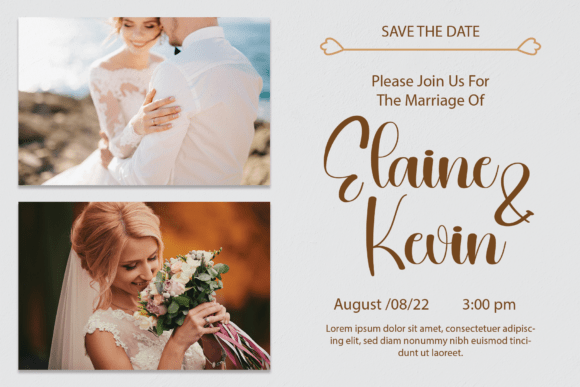
Brainly Font: A Stylish Script Handwritten Font for Elegant Designs
In the world of typography, fonts play a crucial role in conveying the tone and personality of a brand, product, or service. Among the numerous fonts available, Brainly Font stands out as a stylish script handwritten font that has captured the attention of designers and marketers alike. With its elegant curves and natural flow, Brainly Font is perfect for adding a personal and sophisticated touch to various designs, including branding, invitations, logos, and more.
What is Brainly Font?
Brainly Font is a modern script handwritten font that boasts a unique blend of elegance and playfulness. Its carefully crafted letters exhibit a natural flow, making it ideal for designs that require a personal touch. The font’s elegant curves and refined lines evoke a sense of sophistication, while its friendly and approachable feel makes it suitable for a wide range of applications.
Key Features of Brainly Font
- Elegant Curves: Brainly Font features smooth, flowing curves that give it a distinctive and refined appearance.
- Natural Flow: The font’s letters are designed to flow seamlessly into one another, creating a sense of continuity and harmony.
- Handwritten Feel: Brainly Font has a warm, handwritten feel that adds a personal touch to any design.
- Versatility: The font is suitable for a wide range of applications, from formal to casual designs.
Uses of Brainly Font
Brainly Font is an incredibly versatile font that can be used in various design projects, including:
- Wedding Invitations: Add a touch of elegance and romance to your wedding invitations with Brainly Font.
- Branding: Use Brainly Font to create a unique and memorable brand identity that reflects your company’s personality.
- Greeting Cards: Add a personal touch to your greeting cards with Brainly Font’s warm and friendly feel.
- Social Media Posts: Use Brainly Font to create engaging and eye-catching social media posts that stand out from the crowd.
- Logos: Create a sophisticated and memorable logo with Brainly Font that represents your brand’s values and mission.
Benefits of Using Brainly Font
Using Brainly Font in your designs offers numerous benefits, including:
- Unique Identity: Brainly Font helps you create a unique and distinctive identity for your brand or project.
- Elegance and Sophistication: The font’s elegant curves and refined lines add a touch of sophistication to any design.
- Emotional Connection: Brainly Font’s handwritten feel and natural flow help create an emotional connection with your audience.
- Versatility: The font’s versatility makes it suitable for a wide range of applications and design styles.
Tips for Using Brainly Font Effectively
To get the most out of Brainly Font, follow these tips:
- Use it sparingly: Use Brainly Font in moderation to avoid overwhelming your design.
- Pair it with other fonts: Combine Brainly Font with other fonts to create a unique and visually appealing design.
- Adjust font size and color: Experiment with different font sizes and colors to create a design that stands out.
- Keep it consistent: Use Brainly Font consistently across your design to create a cohesive look and feel.
Brainly Font is a stylish script handwritten font that offers a unique blend of elegance, sophistication, and playfulness. With its elegant curves, natural flow, and handwritten feel, it is perfect for adding a personal touch to various designs. Whether used for wedding invitations, branding, greeting cards, or social media posts, Brainly Font is sure to make your design stand out. By following the tips outlined above, you can use Brainly Font effectively and create designs that exude warmth, creativity, and sophistication.